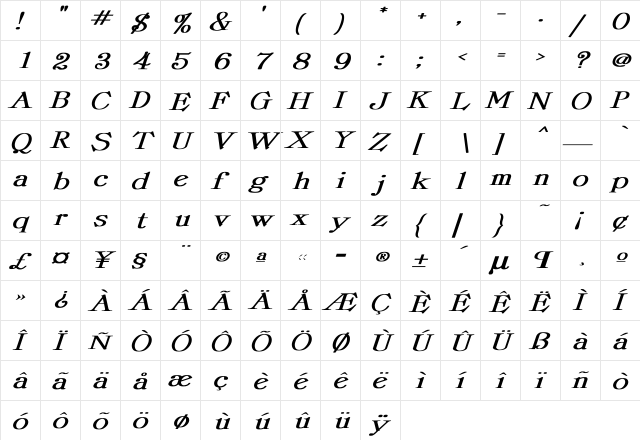
ProvLite Wd Bold Italic Bold Italic
Design Context for ProvLite Wd Bold Italic Typeface
ProvLite Wd Bold Italic takes a measured approach to typography — its balanced proportions and neutral character make it a reliable workhorse for both digital and print work. The dynamic lean of this cut emphasises speed and emphasis in any layout. The heavy weight commands attention and anchors typographic hierarchies.